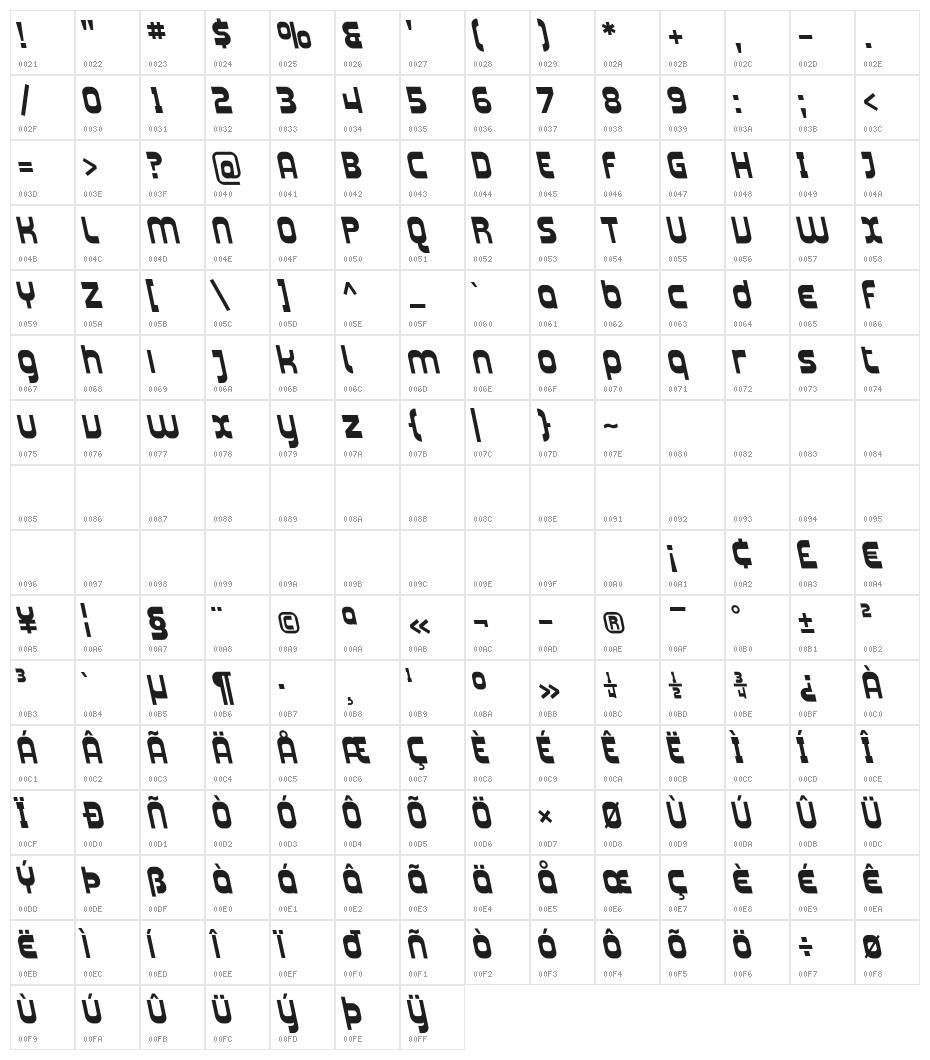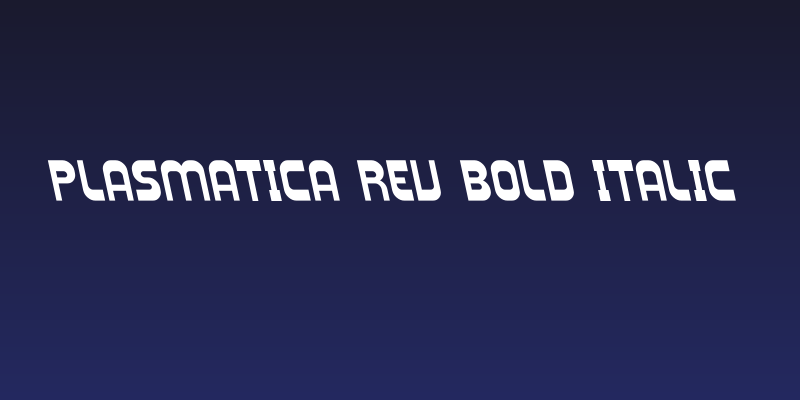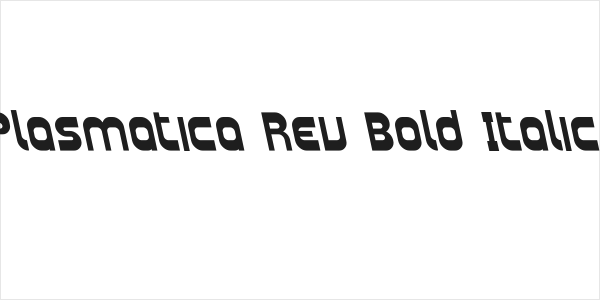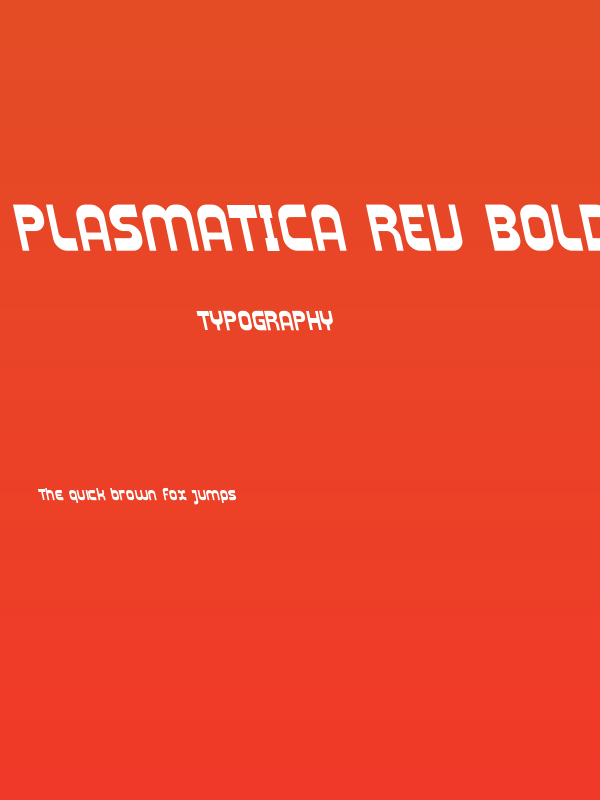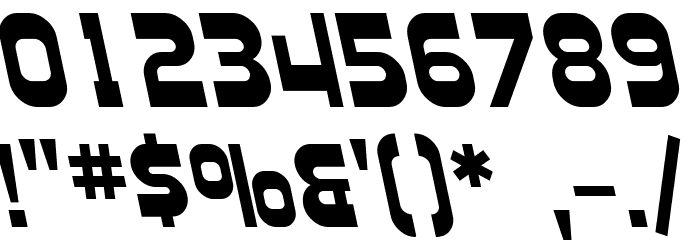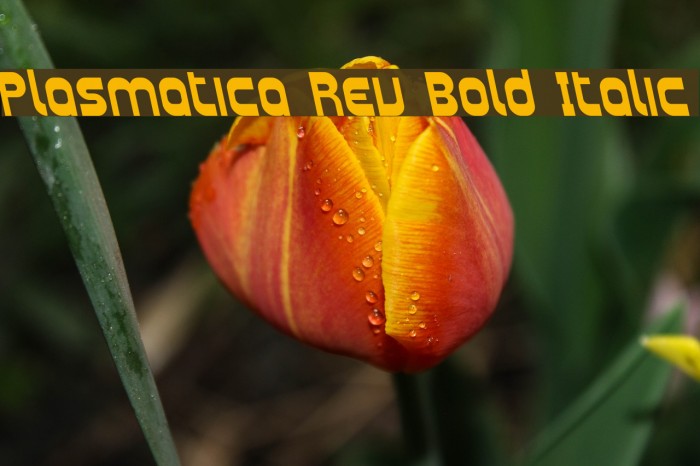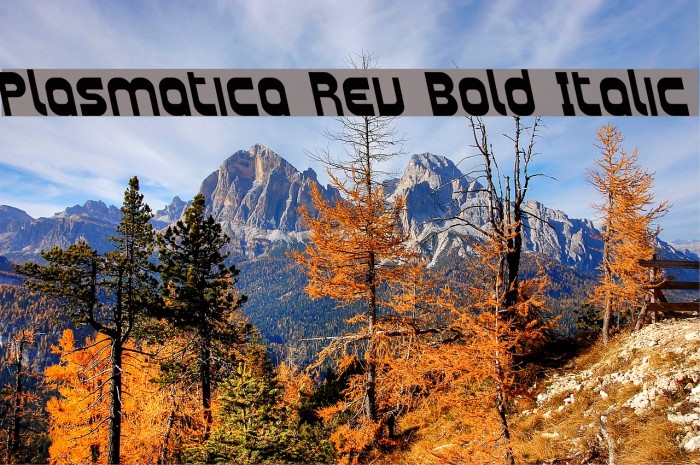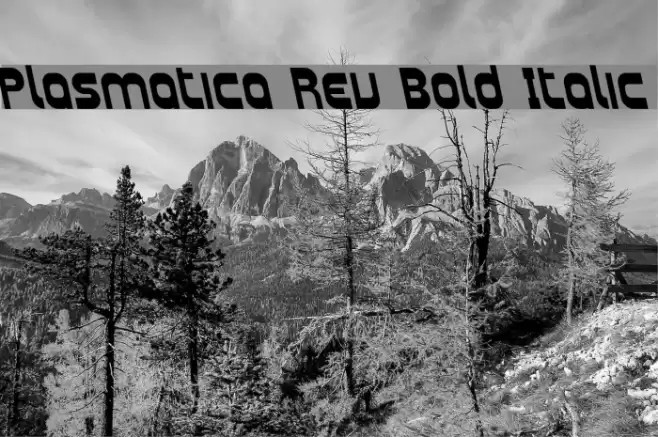
Plasmatica Rev Bold Italic Font
Plasmatica Rev Bold Italic Description
This font features a bold and italicized style with a futuristic and geometric design. The characters are crafted with a unique blend of sharp angles and smooth curves, creating a dynamic and modern appearance. The uppercase and lowercase letters maintain a consistent width, giving the font a uniform look. The numbers and special characters are designed to complement the letters, with distinctive shapes that enhance the overall aesthetic. The font's bold weight and italic slant make it stand out, suitable for projects that require a strong visual impact.
| Proposed Projects | Ideal for sci-fi themed designs, technology branding, video game titles, and modern posters. |